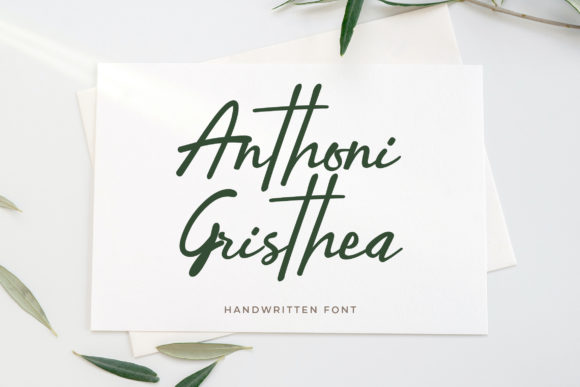
The Elusive Font: A Designer’s Journey with Anthoni Gristhea
I still remember the countless hours I spent scrolling through font libraries, searching for the perfect script font for a client’s fashion brand. The project required something elegant, yet modern; something that would make their brand stand out. And then, I stumbled upon Anthoni Gristhea. This exquisite cursive script font has been a game-changer for my design projects, and I’m excited to share my experience with you.
- 💫 Smooth curves and flowing lines that exude elegance
- ✅ Perfect for fashion branding, editorial designs, and high-end projects
- 🎨 Highly versatile and can be used for both digital and print projects
- 📚 Extensive character set, including OpenType features and glyphs
- ⚠️ Limited use in very formal or traditional designs, as it may come across as too modern
- 🕰️ May require some time to get used to, especially for those familiar with more traditional script fonts
- Experiment with OpenType features, such as ligatures and stylistic alternates, to add more personality to your text
The Story Behind Anthoni Gristhea
Anthoni Gristhea was designed by a talented type designer who wanted to create a font that would capture the essence of modern elegance. Inspired by the flowing lines of handwritten scripts, Anthoni Gristhea was crafted to be both beautiful and versatile. Whether used for fashion branding, editorial designs, or high-end projects, this font is sure to make a statement.
Q: What is the best use for Anthoni Gristhea?
A: Anthoni Gristhea is perfect for fashion branding, editorial designs, and high-end projects that require a touch of elegance and sophistication.
Q: Is Anthoni Gristhea available in different weights or styles?
A: Anthoni Gristhea comes in a range of weights and styles, allowing you to experiment with different looks and moods.
Q: Can I use Anthoni Gristhea for digital projects?
A: Absolutely! Anthoni Gristhea is optimized for both digital and print use, making it a versatile choice for a wide range of projects.